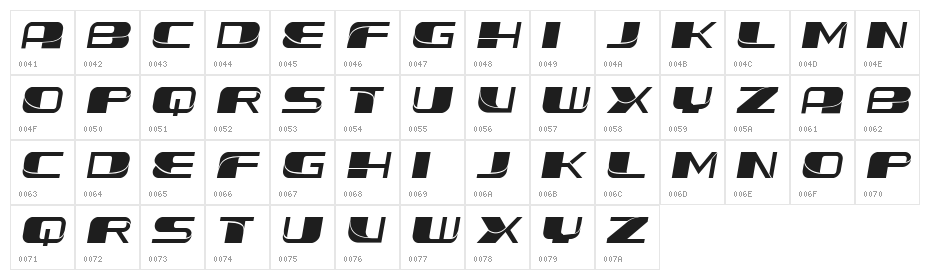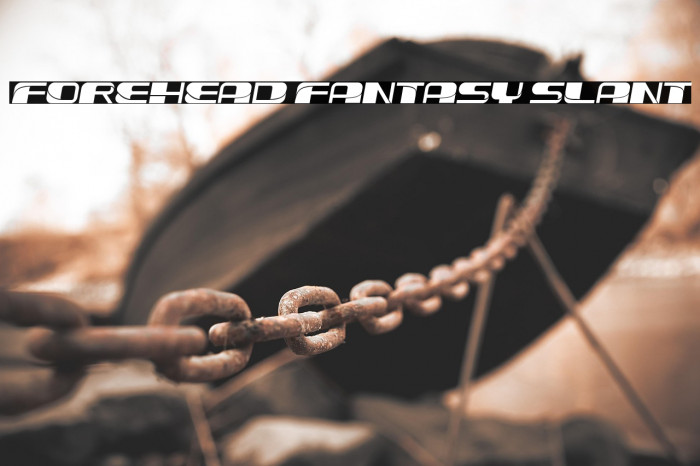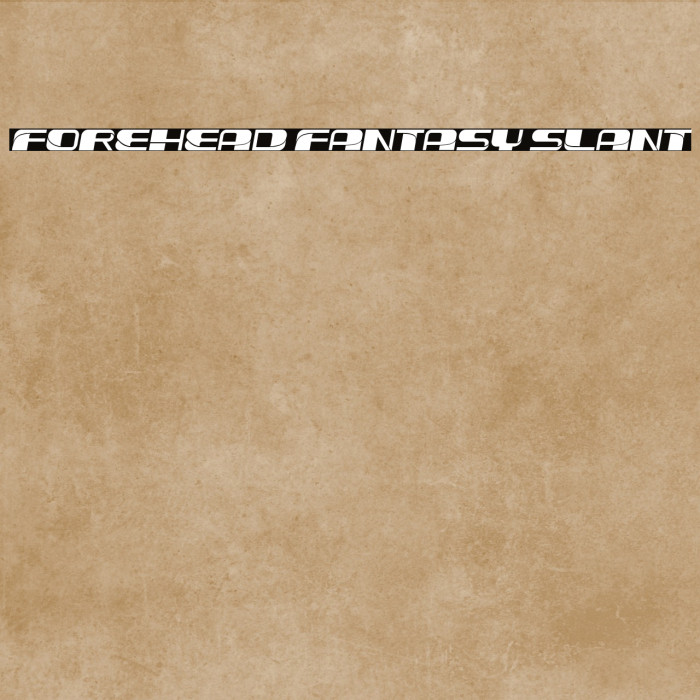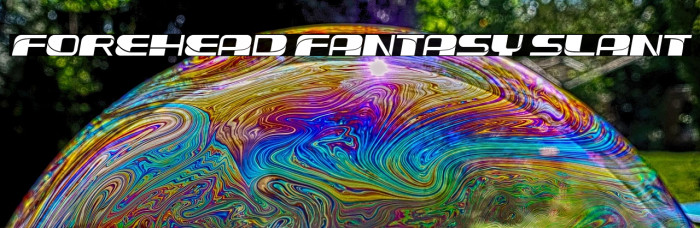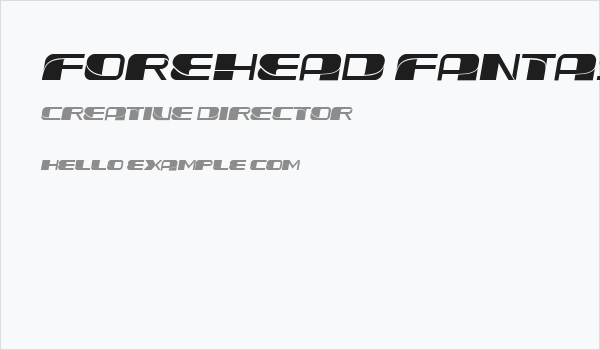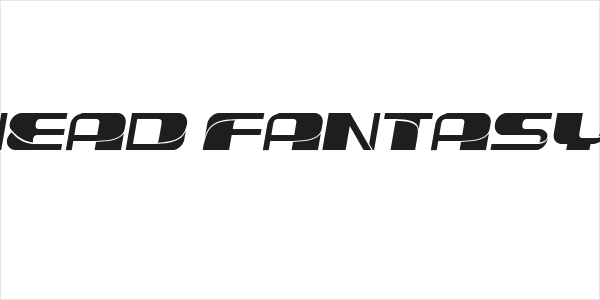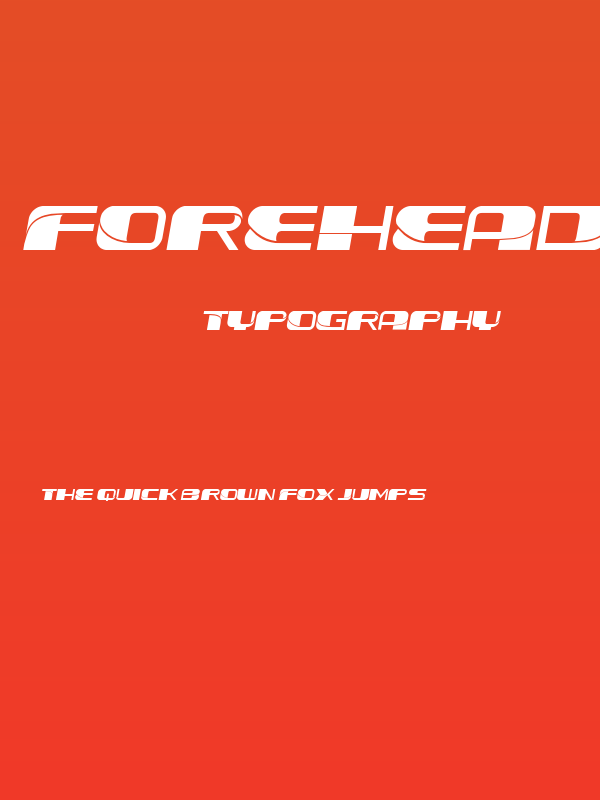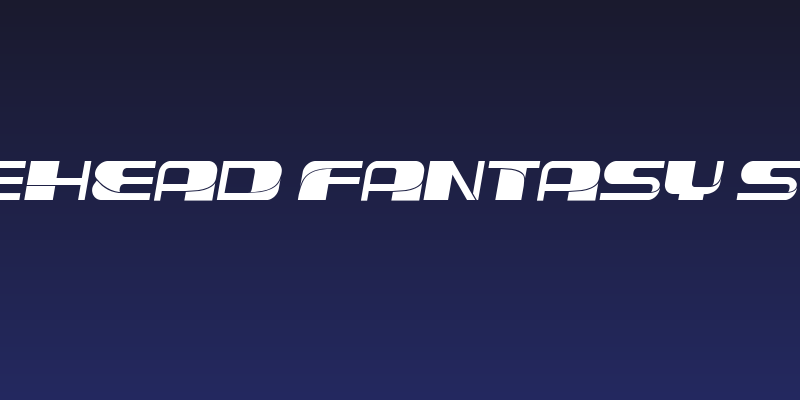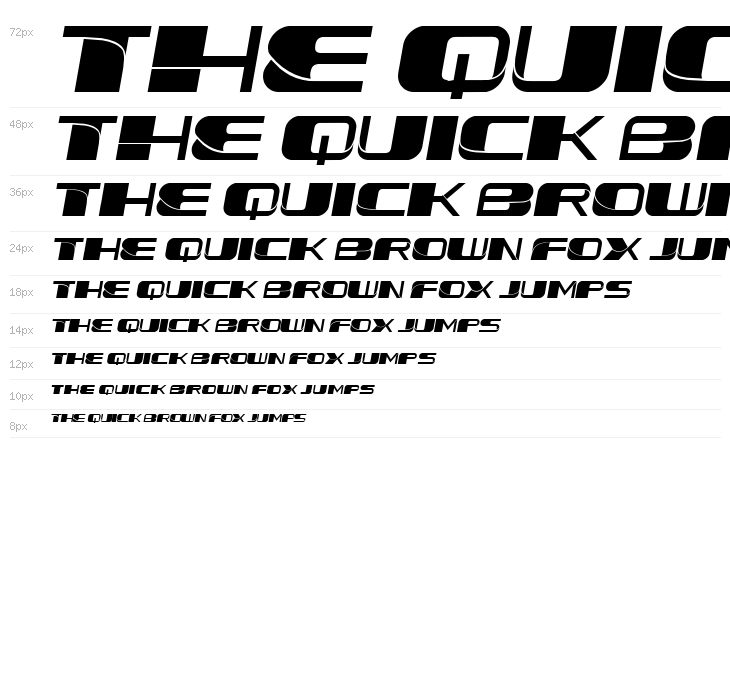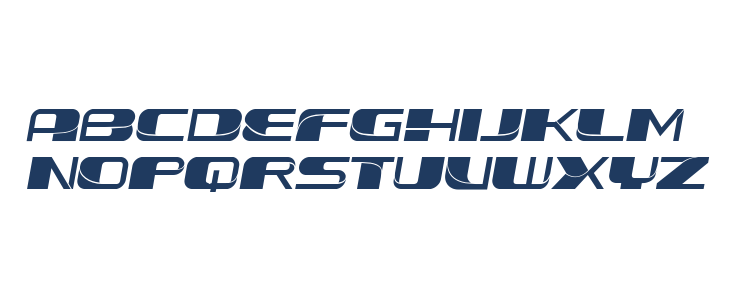
Forehead Fantasy Slant Font
Forehead Fantasy Slant Description
This font features a bold, futuristic design with a strong slant, giving it a dynamic and forward-moving appearance. The characters are crafted with sharp angles and clean lines, creating a sense of speed and modernity. The uppercase letters are particularly striking, with unique cuts and curves that add a distinctive flair. The overall style is sleek and contemporary, making it ideal for projects that require a bold statement. The font's geometric structure is balanced with a slight curvature, providing a harmonious blend of rigidity and fluidity.
| Proposed Projects | Ideal for sci-fi themed designs, technology branding, video game titles, and modern advertising. |